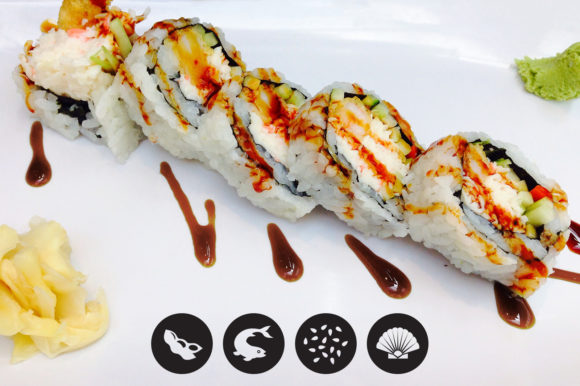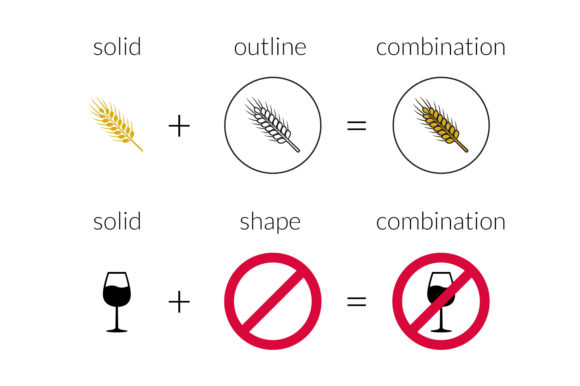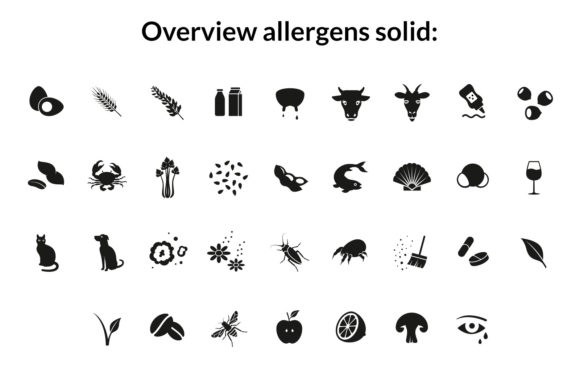
About Food & Allergen Font
Food & Allergen sounds like a useful and informative dingbats font, especially for projects related to allergies and allergen awareness. Here are some potential uses for the Food & Allergen dingbat font:
1. Menus and Restaurant Signage: If you own or manage a restaurant or food establishment, you can incorporate the Food & Allergen icons into your menus and signage. Use the specific allergy icons to indicate the presence of common allergens in your dishes, helping customers with dietary restrictions make informed choices.
2. Food Packaging: If you’re in the food industry, the Food & Allergen icons can be helpful for labeling and packaging. You can include the relevant icons on food labels to indicate potential allergens present in the product. This will assist individuals with allergies in quickly identifying if a product is safe for them to consume.
3. Educational Materials: The Food & Allergen dingbat font can be used to create educational materials about allergies and allergen awareness. This can include brochures, pamphlets, or infographics for schools, hospitals, or community centers. The icons can help raise awareness about common allergens and promote understanding among students, parents, and the general public.
4. Health and Wellness Websites: If you run a health or wellness website or blog, the Food & Allergen icons can be incorporated into articles or resources about allergies, food sensitivities, and dietary restrictions. These icons can visually enhance the content and provide quick visual cues for readers.
5. Product Labels and Ingredient Lists: If you’re a manufacturer of food or personal care products, you can utilize the Food & Allergen dingbat font to label potential allergens on your product packaging. These icons can be included in ingredient lists or used as additional visual indicators of common allergens.
Overall, the Food & Allergen dingbat font can be a valuable tool in creating allergy-awareness materials and providing helpful information about common allergens. Use these icons responsibly and with the aim of promoting a safe and inclusive environment for individuals with allergies.